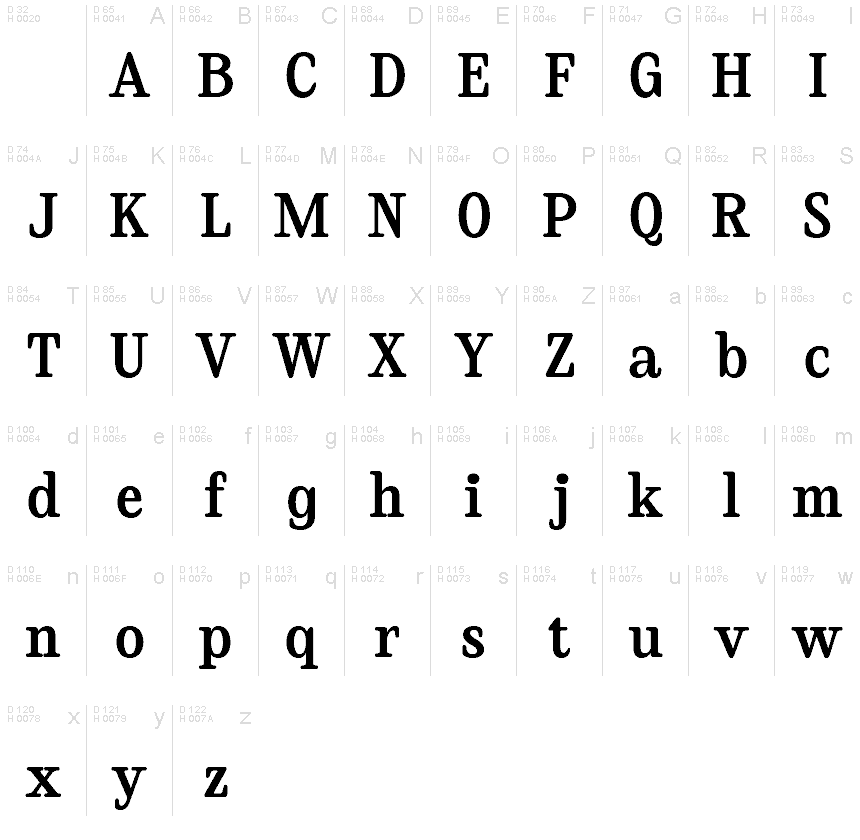
CS Delmar Regular Demo
CS Delmar font by Craft Supply Co. is a serif typeface centered around elegant and classic lines that prioritize professionalism. All of its characters are well-structured which allows for an organized and comfortable reading experience. Condensed, proportional, and low-contrast, this serif font has a powerfully traditional appeal that can be applied to many different fields.
With a proper implementation, CS Delmar can be an excellent branding tool in logos or wordmarks – especially for law firms and finance sectors. It easily covers newspapers, packaging boxes, event posters/flyers (weddings), magazines, books/covers/titles/spines (academic or fictional), or booklets/pamphlets/brochures for businesses.